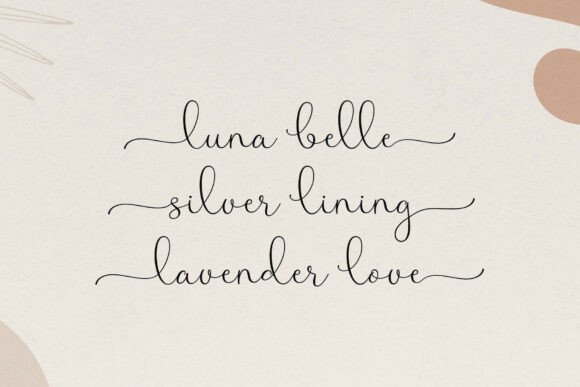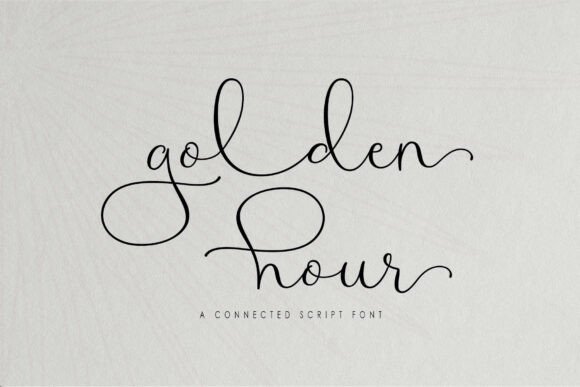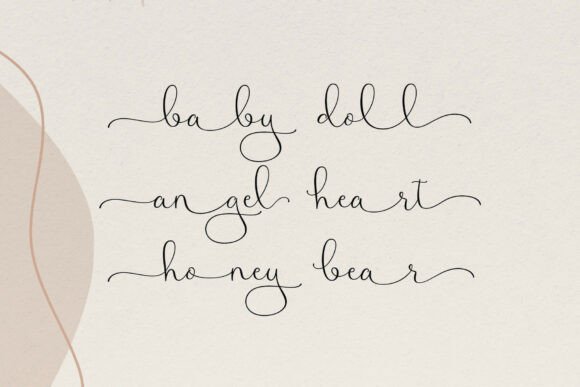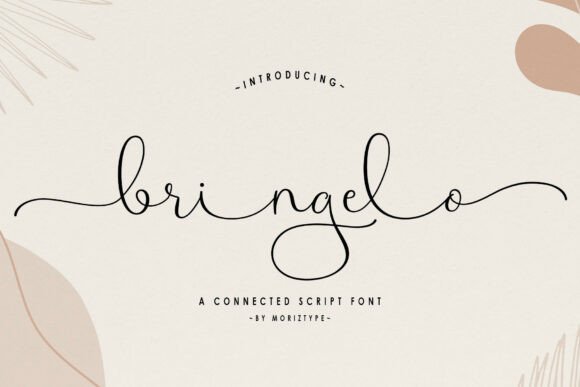
Introduction to Bringelo Script Font
Bringelo: A Romantic Connected Script 🎀🕊️ Bringelo is a tender, connected handwritten script designed to evoke warmth and emotional connection.
With its fluid letterforms and soft, romantic touch, this font mimics the natural grace of heartfelt penmanship Its balanced characters and rhythmic flow create a personal yet professional feel, making it a favorite for designs that need an intimate, aesthetic touch.
Key Features of Bringelo Script Font
Why Choose Bringelo Script Font?